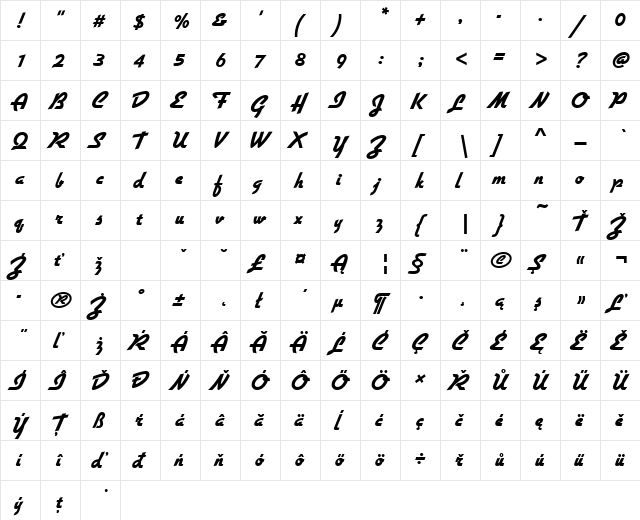
GilliesGotDEEExtBol Regular
Design Context for GilliesGotDEEExtBol Typeface
GilliesGotDEEExtBol is a composed and adaptable typeface that performs quietly and consistently across a wide range of design contexts.